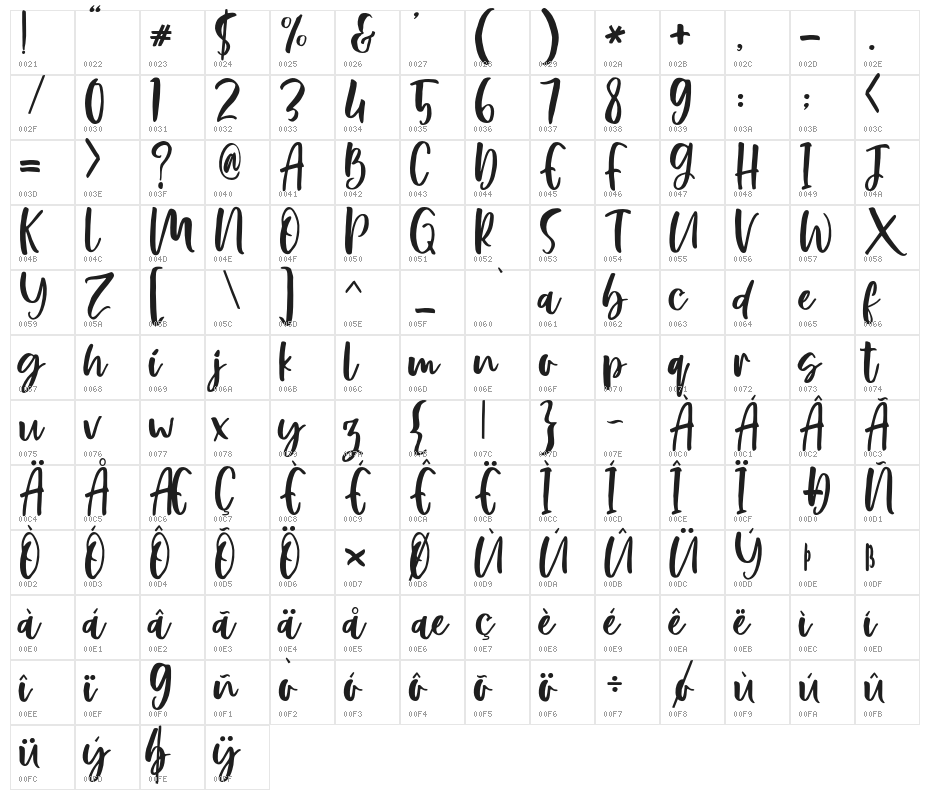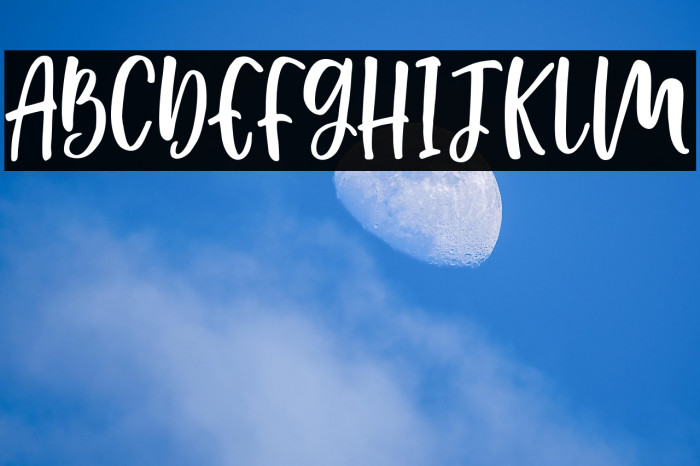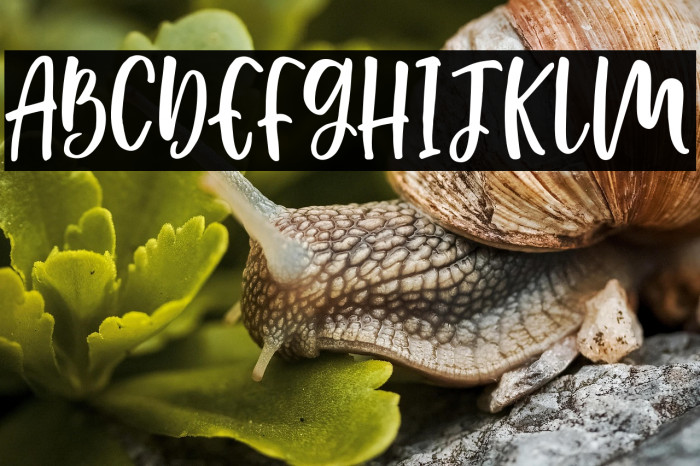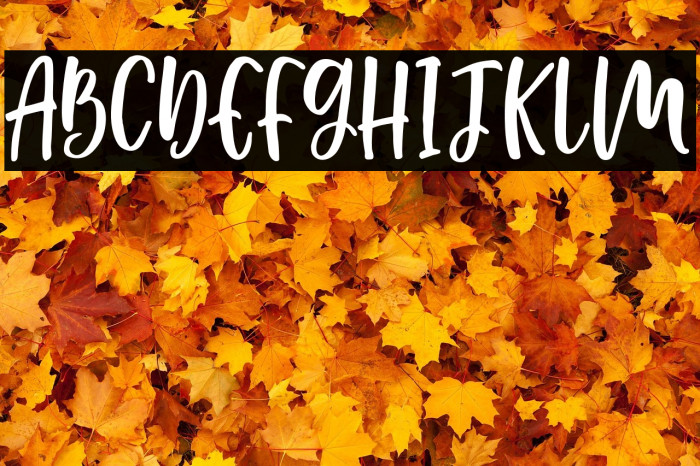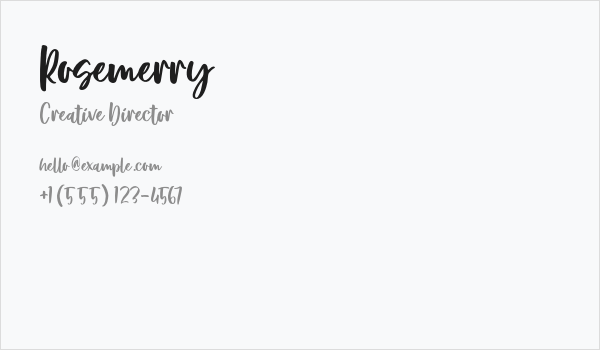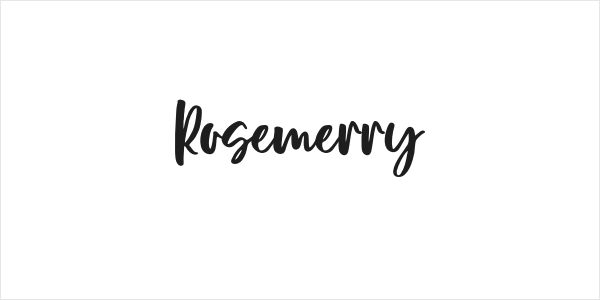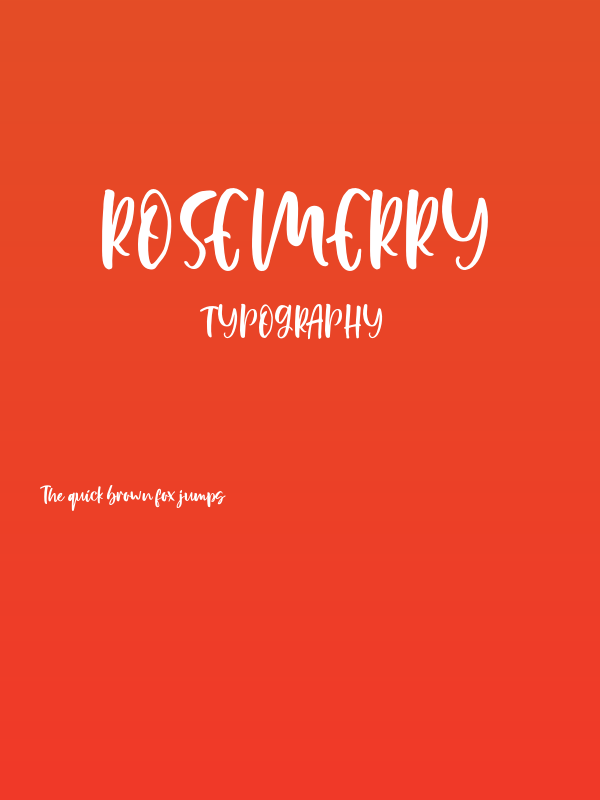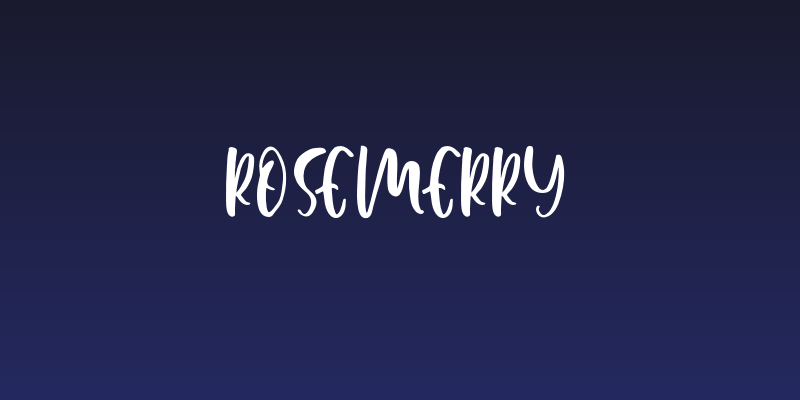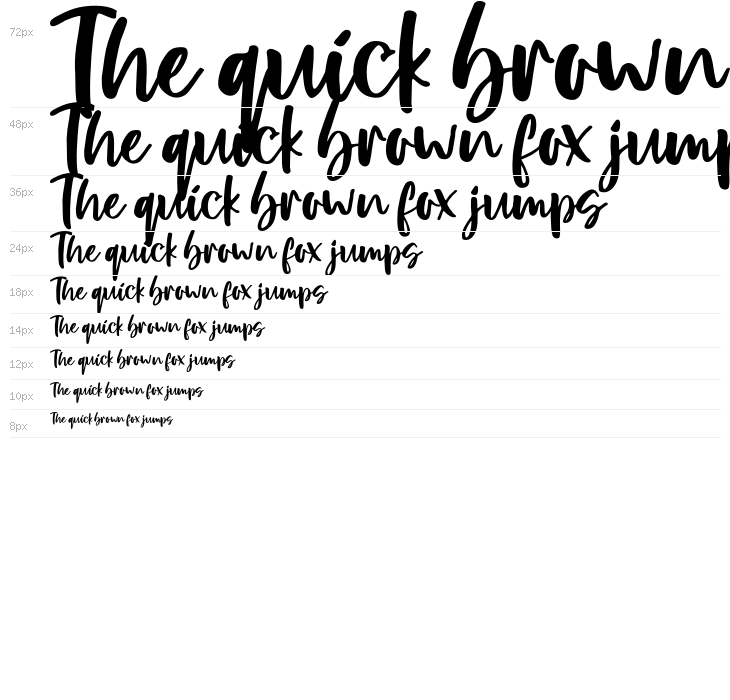
Rosemerry Font
Rosemerry Description
This font exudes a lively and energetic vibe with its bold, brush-like strokes and fluid, cursive style. The letters are crafted with a sense of movement, giving them a dynamic and playful appearance. The uppercase characters are tall and slightly narrow, while the lowercase letters maintain a consistent flow with smooth curves and loops. The numbers and special characters are equally expressive, maintaining the same bold and artistic flair. This font is perfect for projects that require a personal touch, such as invitations, greeting cards, or branding materials that aim to convey creativity and warmth.
| Proposed Projects | Ideal for invitations, greeting cards, branding, and creative projects. |